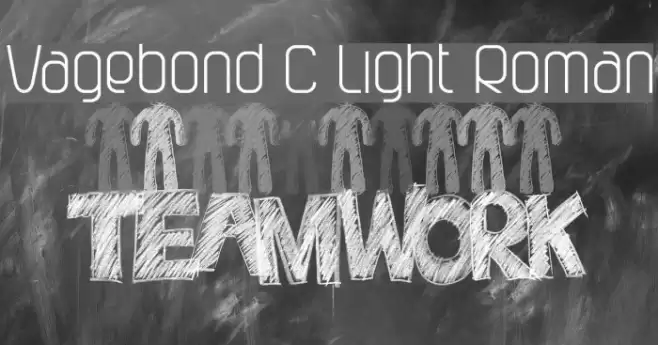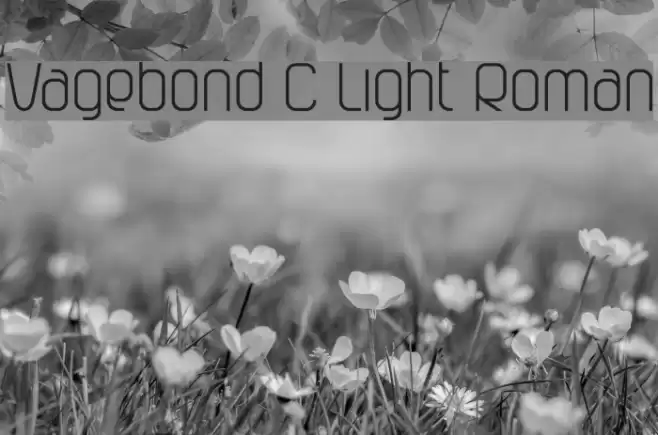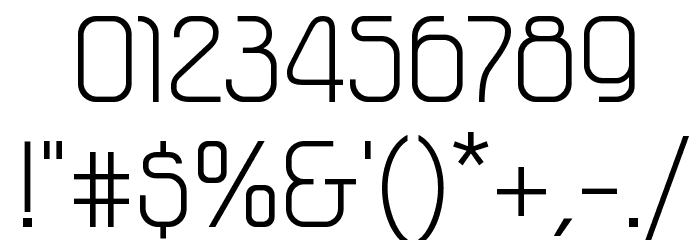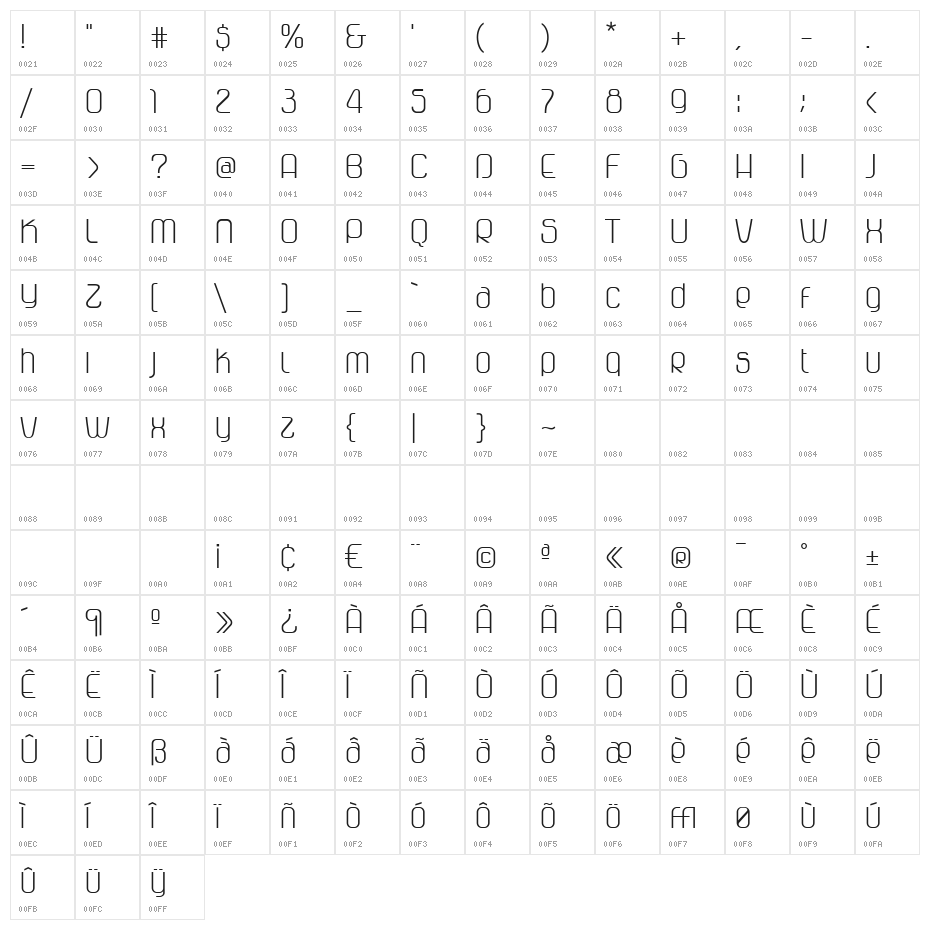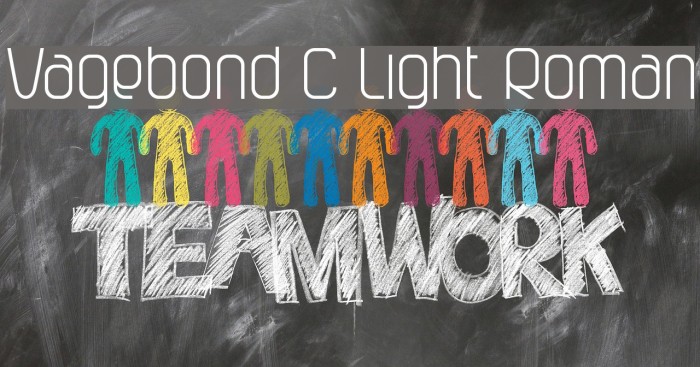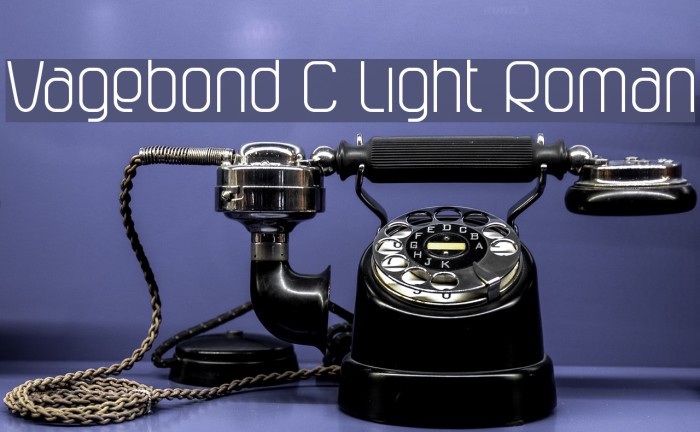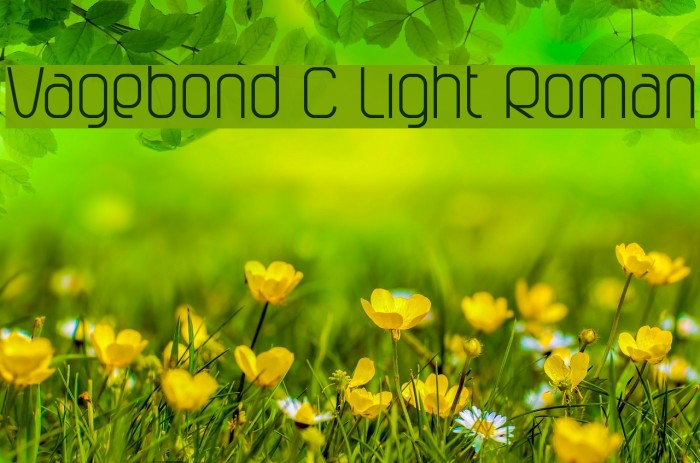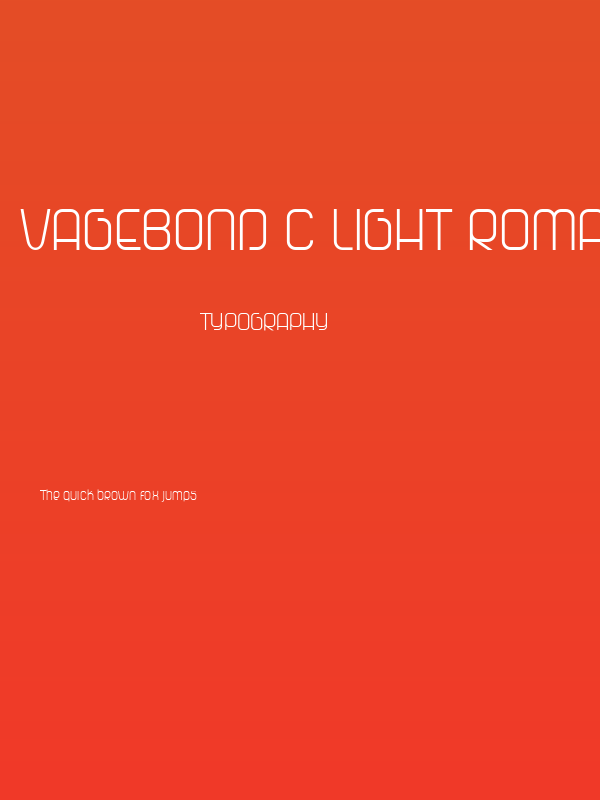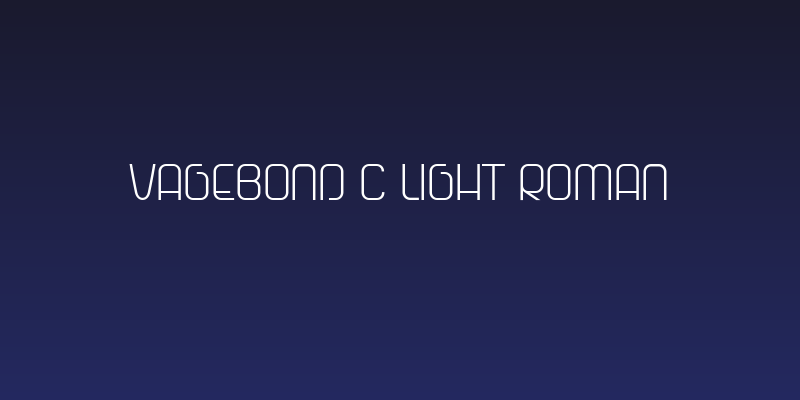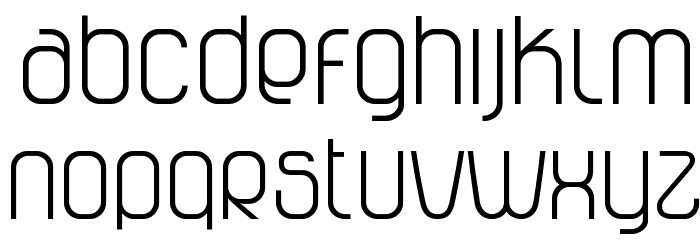
Vagebond C Light Roman Font
Vagebond C Light Roman Description
This font features a clean and modern design with a geometric structure. The characters are constructed with uniform line thickness, giving it a sleek and contemporary appearance. The rounded edges and open forms contribute to its readability and friendly aesthetic. The uppercase and lowercase letters maintain a consistent style, while the numerals and special characters are designed to complement the overall look. This font is versatile, suitable for both digital and print media, and can be used in various design contexts.
A modern, geometric font with uniform line thickness and rounded edges from Uncategorized fonts.